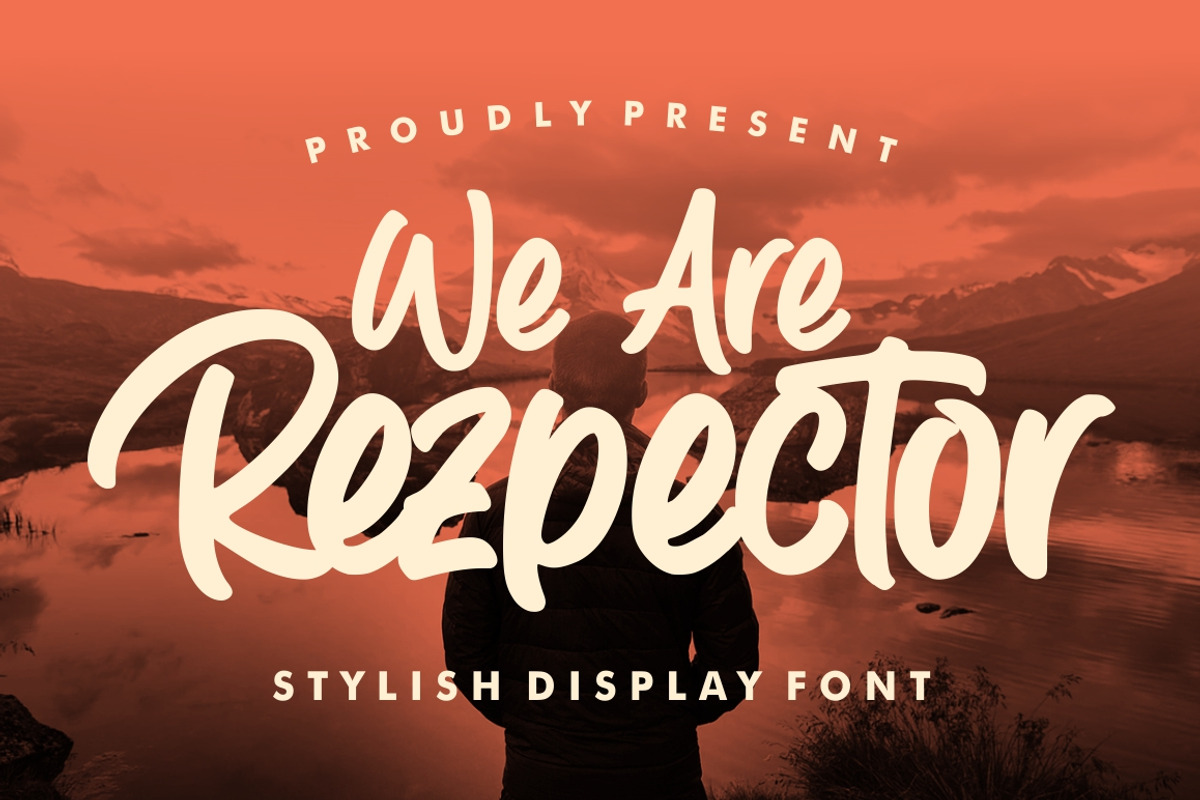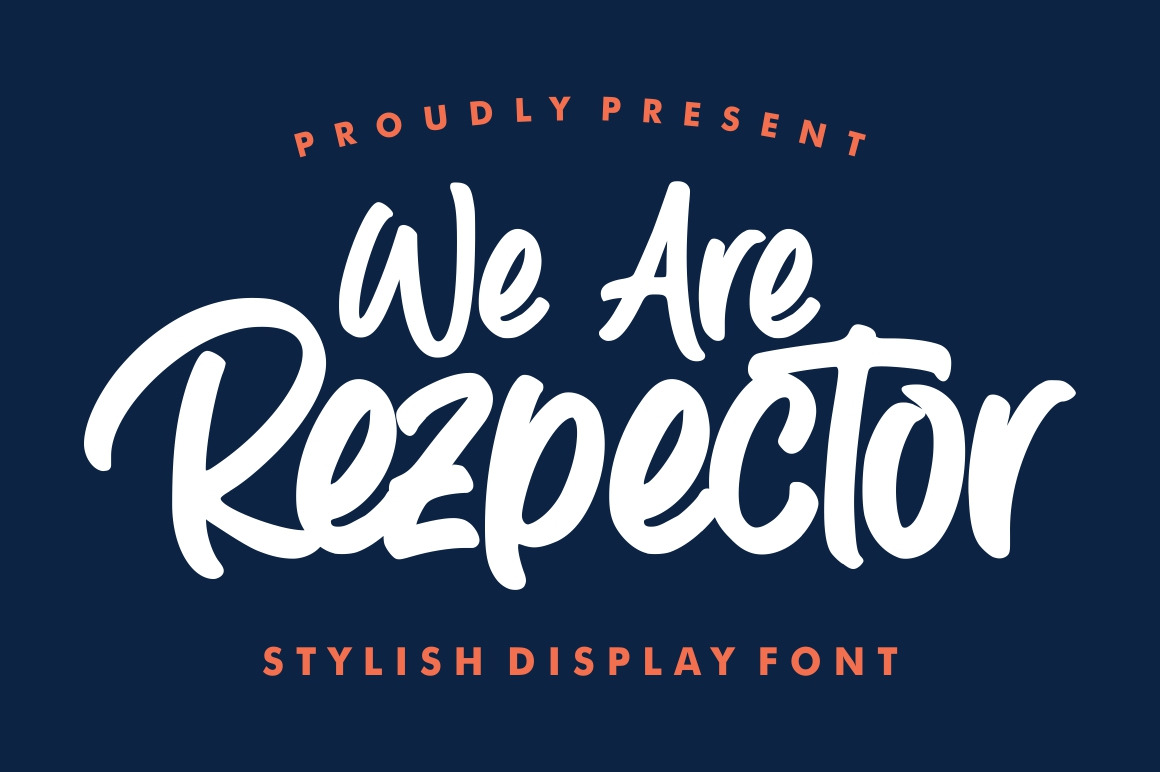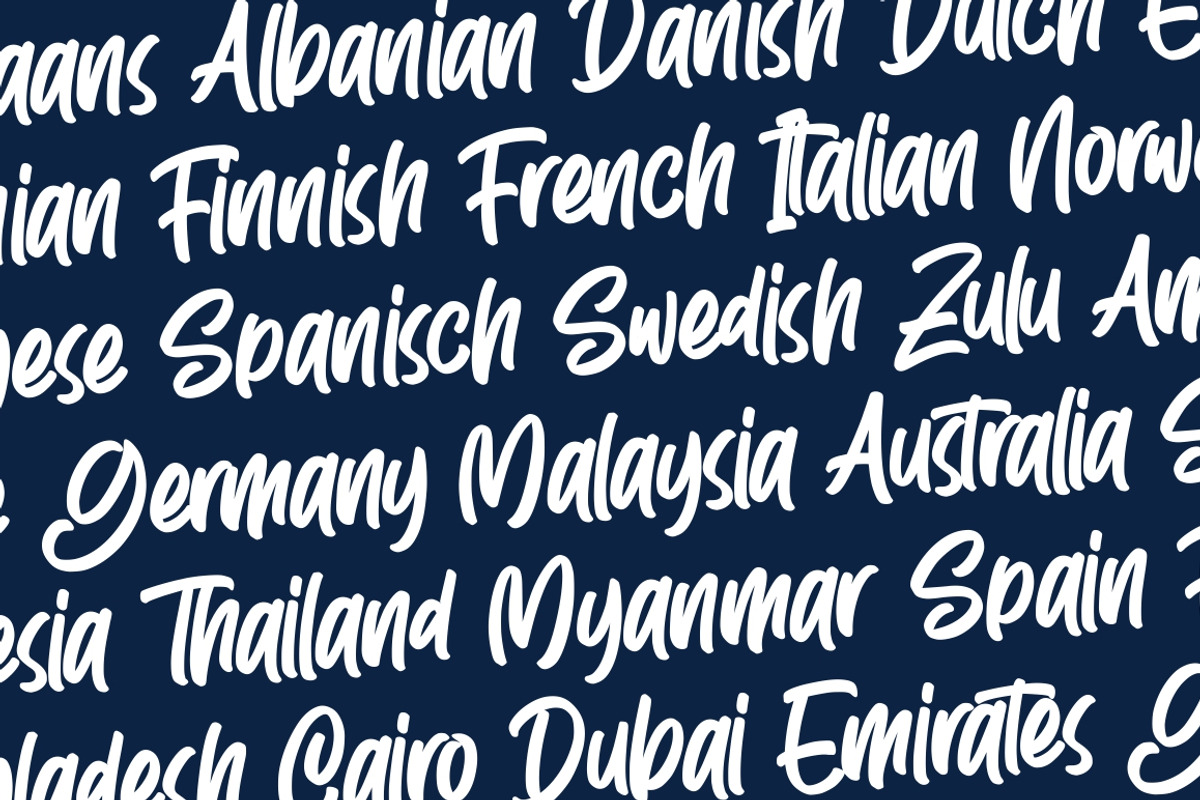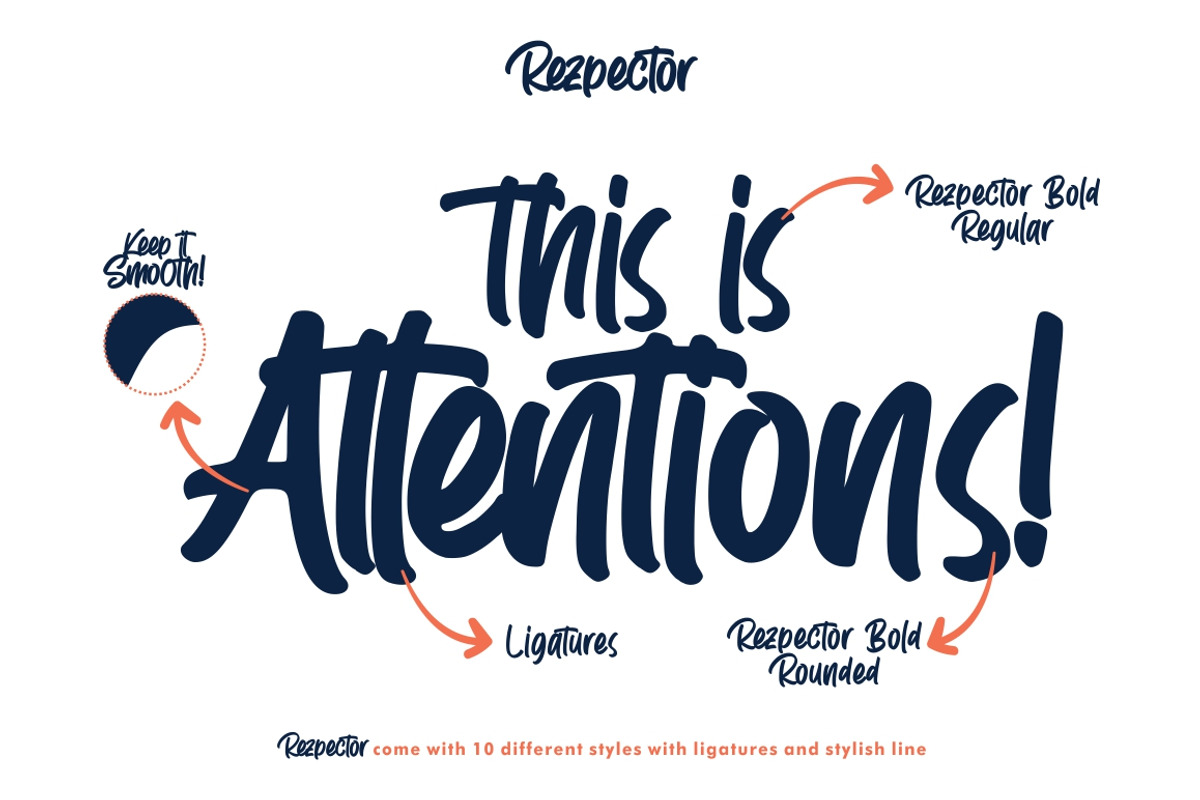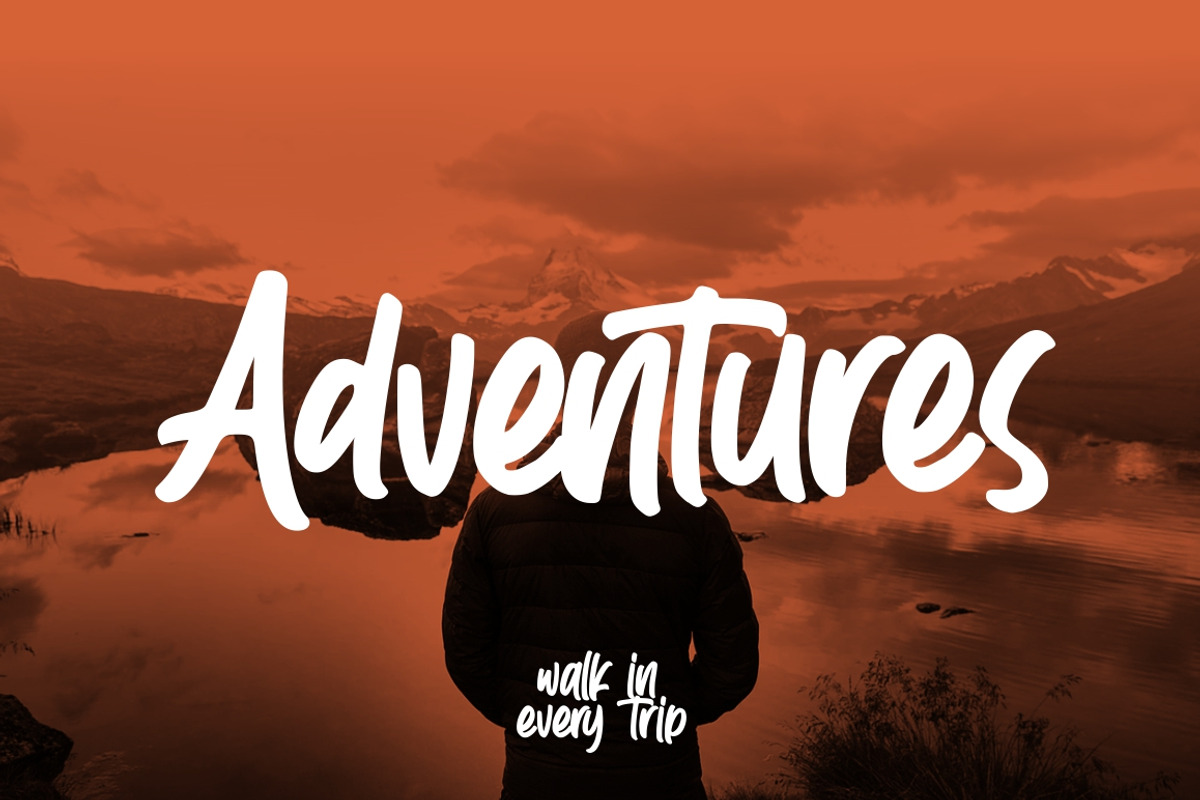
Rezpector - Stylish Display Font
Rezpector combines attractive curves with a fresh urban edge; delivering a stylish script which is guaranteed to add an eye-catching appeal to your logo designs, brand imagery, quotes, product packaging, merchandise & social media posts
Rezpector Regular
Rezpector Rounded
Rezpector Outlined
All font included Slant versions
Uppercase & Lowercase letters
Ligature
Support for 14 Languages: Afrikaans Albanian Danish Dutch English Estonian Finnish French Italian Norwegian Portugese Spanisch Swedish Zulu